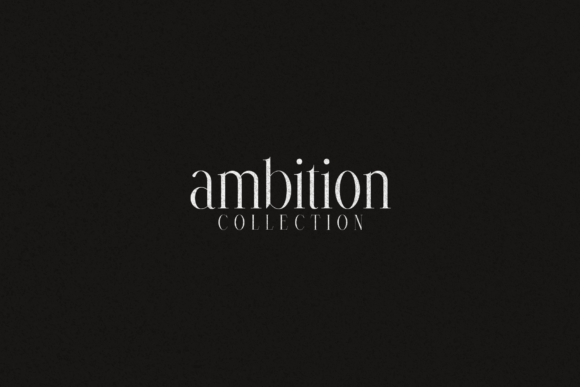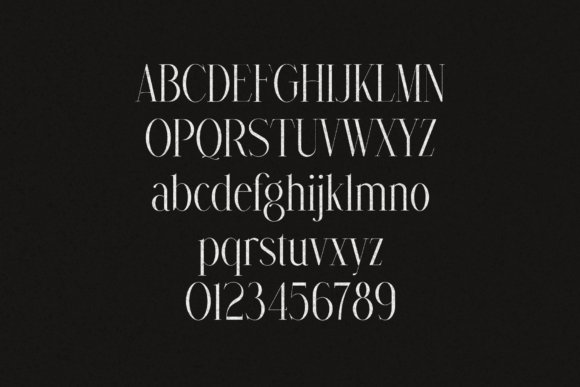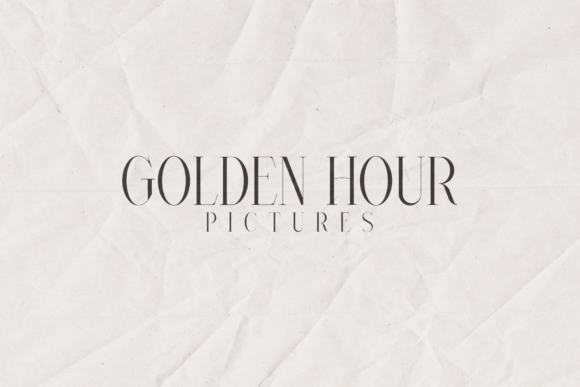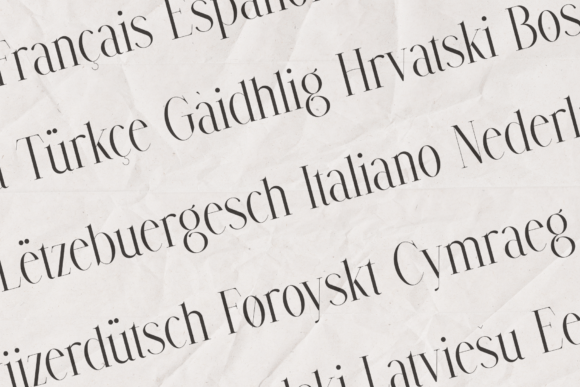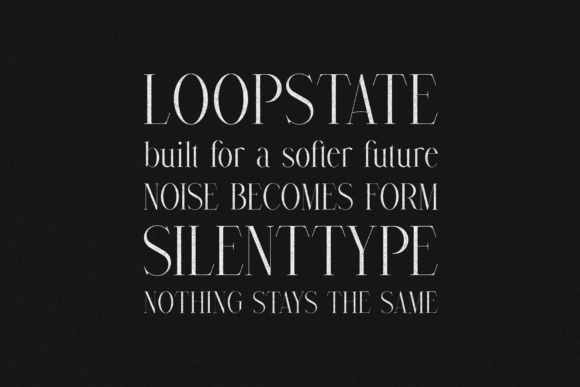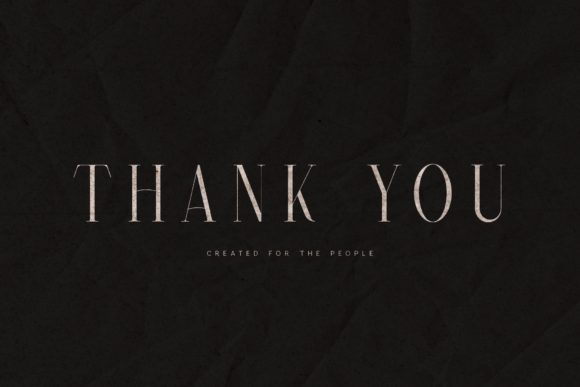
Introducing Avarice Font: Elevate Your Design with Refined Modern Serif Typography
In the world of typography, a font can make or break the visual identity of a project. For designers and crafters seeking to elevate their work with a touch of sophistication and elegance, Avarice Font is an exceptional choice. This refined modern serif font is specifically crafted for expressive, high-end typography, balancing sharp elegance with subtle softness to bring a quiet confidence to every composition.
The Essence of Avarice Font
Avarice Font boasts high-contrast strokes, graceful curves, and delicately tapered serifs, creating a timeless aesthetic that feels both classic and contemporary. This unique blend of characteristics makes it an ideal choice for a wide range of applications, from editorial layouts and luxury branding to film titles, fashion campaigns, and artistic headlines.
One of the standout features of Avarice Font is its ability to convey a sense of intentionality and poise. The letterforms are carefully crafted to allow space, texture, and silence to become part of the design, where noise becomes form and restraint becomes power. This thoughtful approach to typography enables designers to create visually stunning compositions that command attention without overwhelming the senses.
Designed for Storytelling and Visual Identity
Avarice Font is designed with storytelling and strong visual identity in mind. Its elegant and refined appearance makes it perfect for projects that require a touch of sophistication, such as:
- Editorial layouts: Bring a touch of luxury to your magazine, newspaper, or online publication with Avarice Font’s high-end typography.
- Luxury branding: Elevate your brand’s visual identity with a font that exudes refinement and sophistication.
- Film titles: Add a touch of glamour to your film’s title sequence with Avarice Font’s elegant and refined appearance.
- Fashion campaigns: Bring a sense of high-end style to your fashion campaign with Avarice Font’s sophisticated and elegant typography.
- Artistic headlines: Add a touch of creativity and elegance to your artistic headlines with Avarice Font’s unique and refined appearance.
Comprehensive Character Set and Multilingual Support
Avarice Font is built to elevate premium projects while remaining versatile across print and digital use. The font includes:
- Carefully drawn uppercase and lowercase characters
- Numerals and punctuation marks
- Multilingual support for a wide range of languages
This comprehensive character set and multilingual support make Avarice Font an excellent choice for designers and crafters working on international projects or seeking to create a cohesive visual identity across multiple languages.
Why Choose Avarice Font?
With so many fonts available, why choose Avarice Font for your next project? Here are just a few reasons:
- Unique and refined appearance: Avarice Font’s elegant and sophisticated appearance sets it apart from more traditional serif fonts.
- Versatility: Avarice Font is suitable for a wide range of applications, from print to digital, and can be used in various languages.
- High-end typography: Avarice Font is specifically crafted for expressive, high-end typography, making it perfect for luxury branding, editorial layouts, and artistic headlines.
- Carefully crafted letterforms: The font’s letterforms are carefully drawn to allow space, texture, and silence to become part of the design, creating a visually stunning composition.
In conclusion, Avarice Font is an exceptional choice for designers and crafters seeking to elevate their work with refined modern serif typography. Its unique blend of elegance, sophistication, and versatility makes it perfect for a wide range of applications, from luxury branding to artistic headlines. With its comprehensive character set and multilingual support, Avarice Font is built to elevate premium projects while remaining versatile across print and digital use.